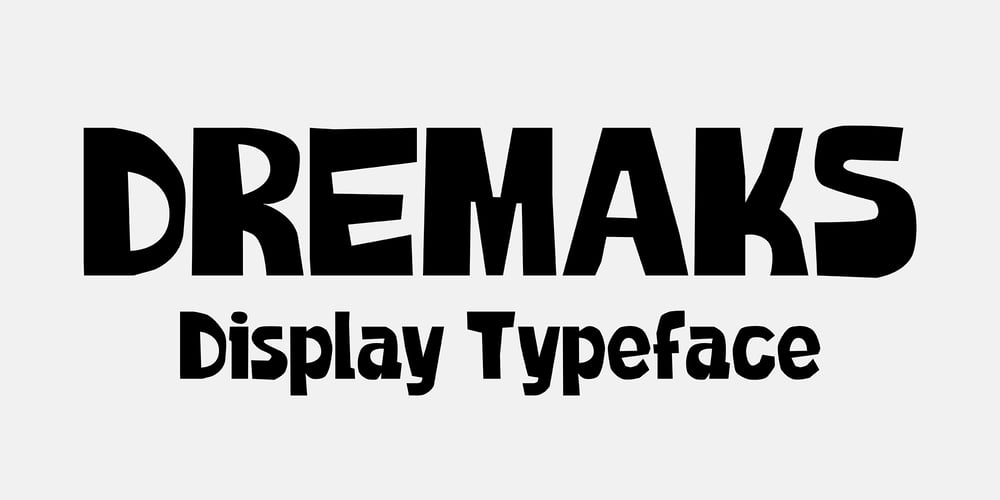
Dremaks Font Family was designed by Szymon Mandziarz and published by SMZ Design. Dremaks contains 1 styles and family package options. Dermaks – A modern typeface with unusual shapes. The starting point were intuitively drawn glyphs that gave the impression of being cut in paper. It goes well with colors and black and white. The font is intended to provide a distinctive original form. Intended for slogan designs, headlines, logotypes, clothing designs, posters and all designs with an intriguing style.